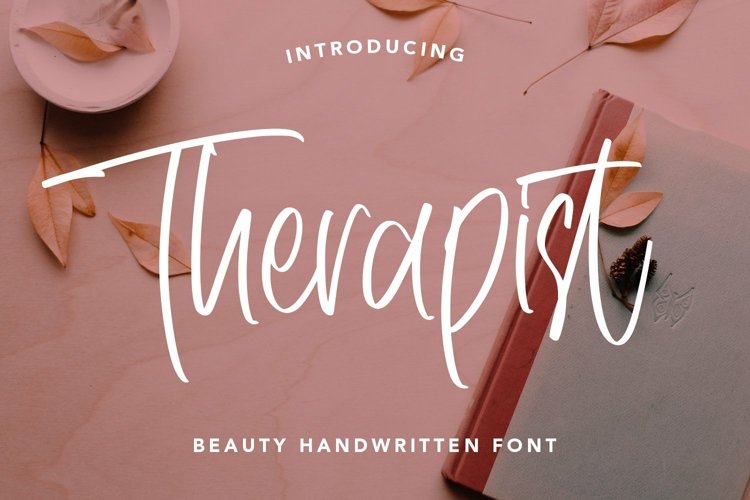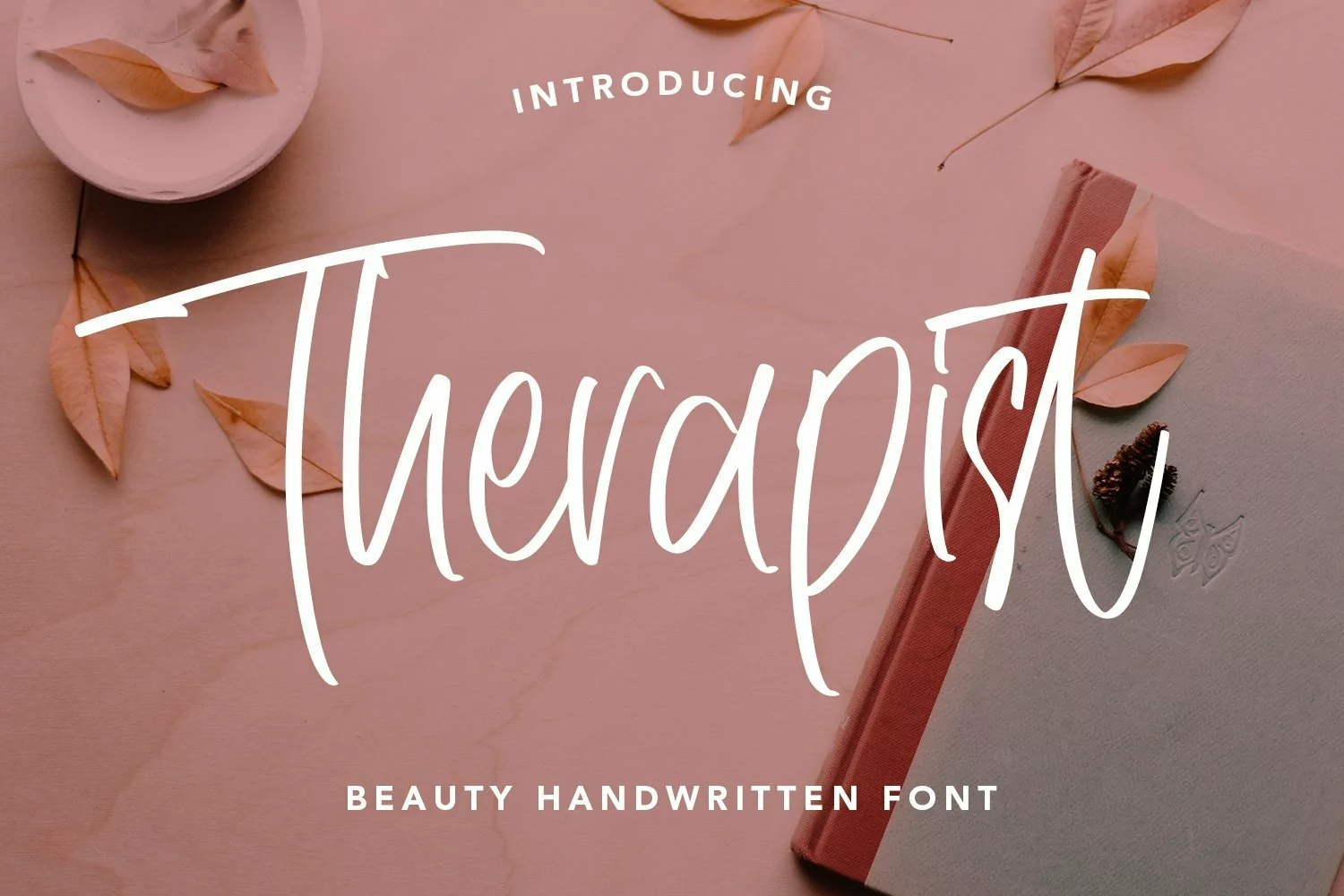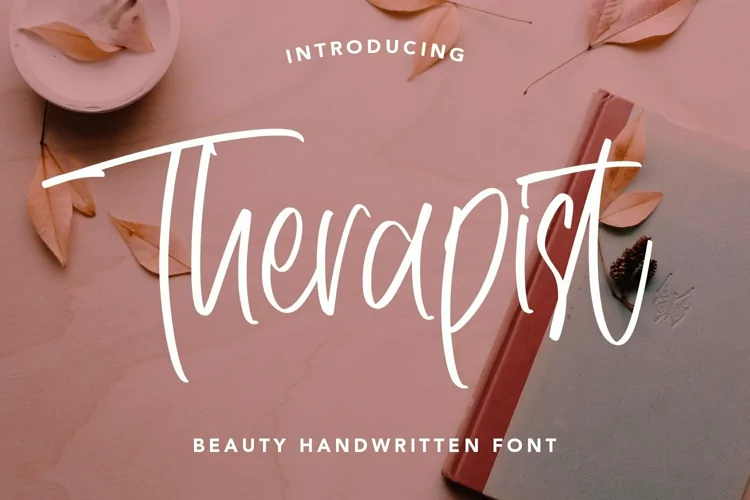
Web Font Therapist - Beauty Handwritten Font that contain lowercase, uppercase, symbol, and also support multi language. There’s a lot ligatures in this font. This Font also comes with ligatures, alternates and many more. this font suitable for fashion, branding, catalog and other design what you want.
Therapist